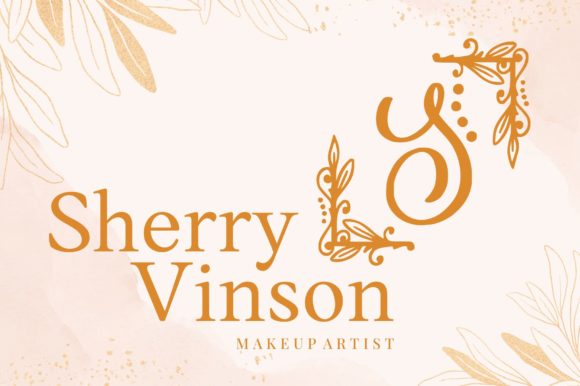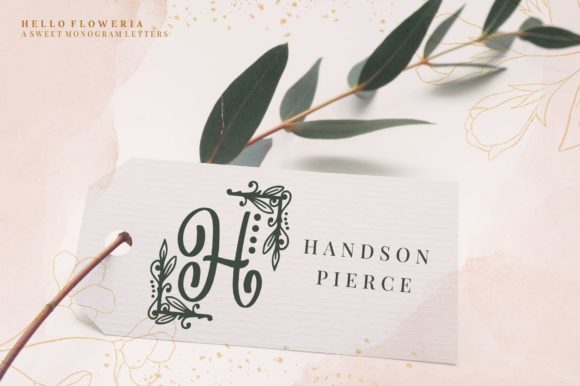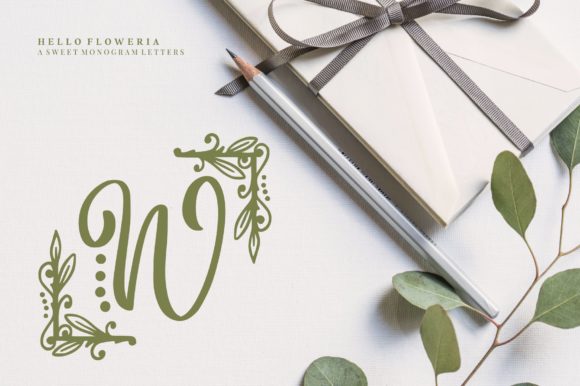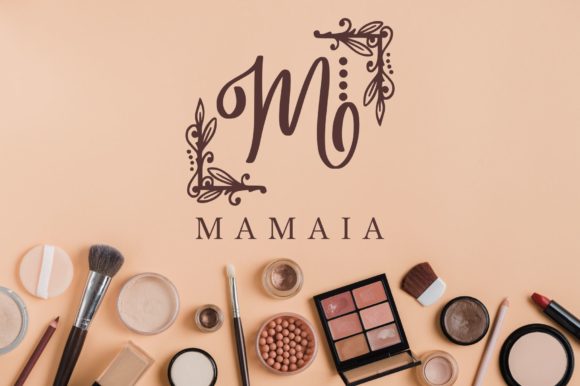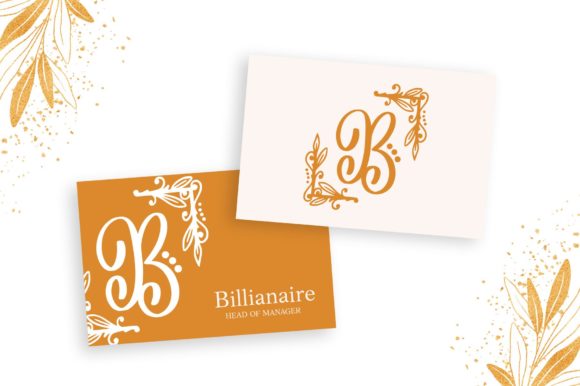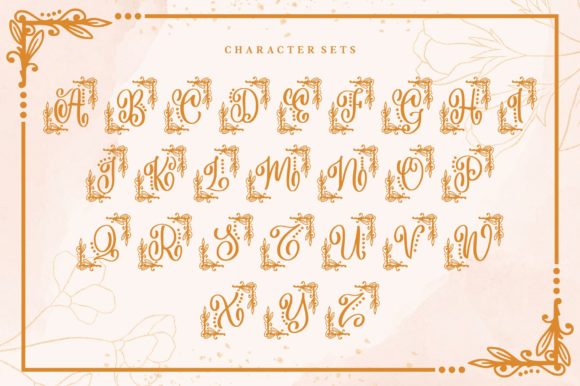
Hello Floweria Font: The Sweetest Decorative Font for Your Creative Projects
Are you looking for a font that can add a touch of sweetness and elegance to your designs? Look no further than Hello Floweria Font! This beautiful decorative font features lovely flower ornaments that will make your projects stand out. In this article, we’ll take a closer look at Hello Floweria Font and explore its features, uses, and benefits for designers and crafters.
What is Hello Floweria Font?
Hello Floweria Font is a sweet decorative font that is perfect for creating beautiful and eye-catching designs. The font features lovely flower ornaments that give it an authentic and charming feel. With its unique and elegant design, Hello Floweria Font is ideal for a variety of creative projects, including wedding invitations, stationary art, social media posts, and greeting cards.
Features of Hello Floweria Font
Hello Floweria Font has several features that make it a great choice for designers and crafters. Some of its key features include:
- Lovely flower ornaments: The font features beautiful flower ornaments that add a touch of elegance and sweetness to your designs.
- Authentic feel: The font has an authentic feel that makes it perfect for creating traditional and vintage-inspired designs.
- Elegant design: The font has an elegant design that makes it suitable for a variety of creative projects, from wedding invitations to social media posts.
Uses of Hello Floweria Font
Hello Floweria Font is a versatile font that can be used for a variety of creative projects. Some of the most popular uses of the font include:
- Wedding invitations: The font is perfect for creating beautiful and elegant wedding invitations that will make your special day even more memorable.
- Stationary art: The font can be used to create beautiful stationary art, including notecards, journals, and planners.
- Social media posts: The font is great for creating eye-catching social media posts that will help you stand out from the crowd.
- Greeting cards: The font is perfect for creating cute and personalized greeting cards for special occasions.
Benefits of Using Hello Floweria Font
There are several benefits to using Hello Floweria Font for your creative projects. Some of the benefits include:
- Unique and elegant designs: The font allows you to create unique and elegant designs that will make your projects stand out.
- Versatile: The font is versatile and can be used for a variety of creative projects.
- High-quality: The font is high-quality and will help you create professional-looking designs.
Tips for Using Hello Floweria Font
Here are some tips for using Hello Floweria Font:
- Use it for special occasions: The font is perfect for special occasions, such as weddings, anniversaries, and birthdays.
- Experiment with different colors: The font looks great in a variety of colors, so don’t be afraid to experiment and find the perfect color for your design.
- Pair it with other fonts: The font can be paired with other fonts to create a unique and interesting design.
- Use it for digital and print projects: The font can be used for both digital and print projects, making it a great addition to your font library.
Hello Floweria Font is a beautiful and versatile font that is perfect for designers and crafters. With its lovely flower ornaments and elegant design, it’s ideal for creating unique and eye-catching designs. Whether you’re creating wedding invitations, stationary art, social media posts, or greeting cards, Hello Floweria Font is a great choice. So why not give it a try and see what amazing designs you can create?